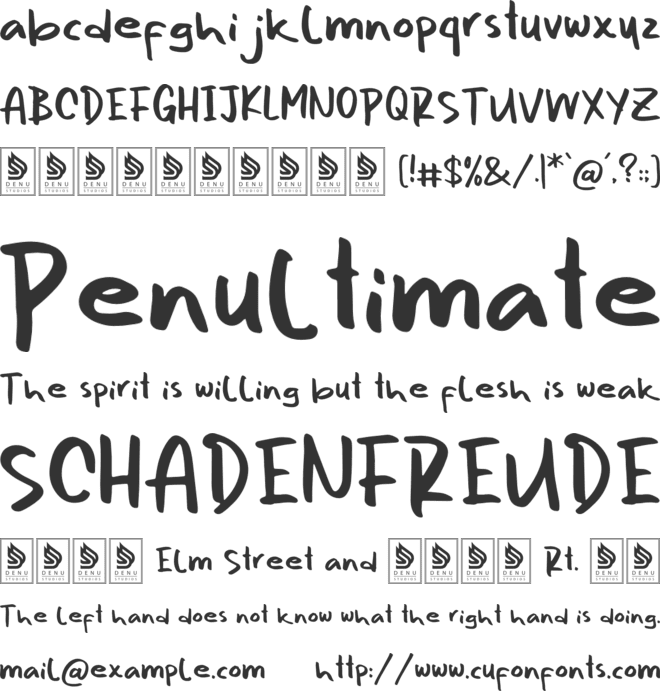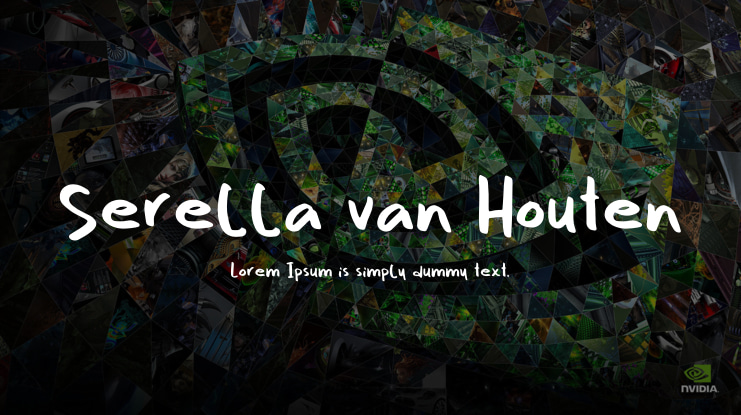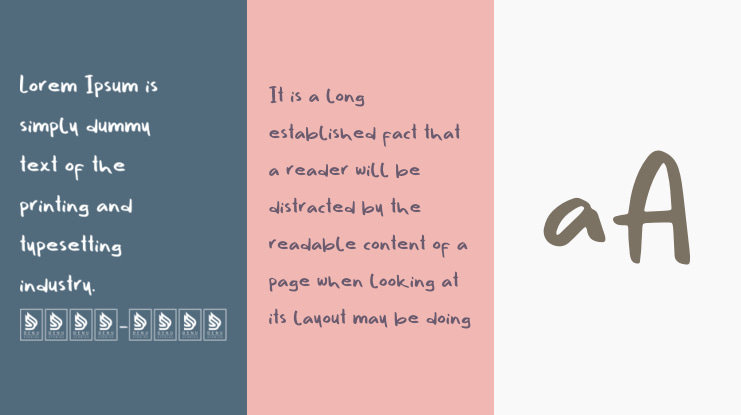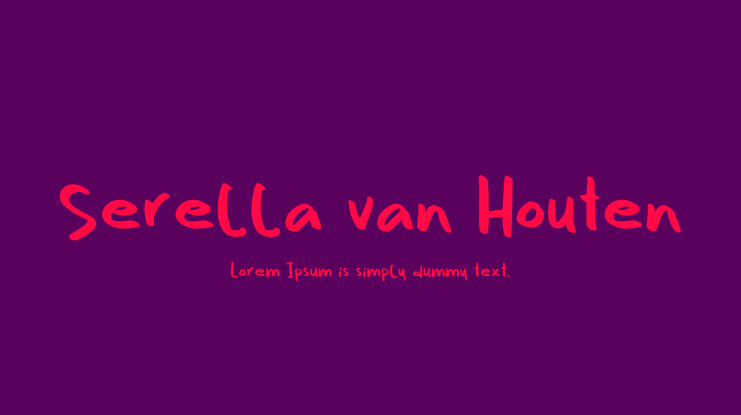
Serella van Houten Font
Serella van Houten | Hand Drawn Font
This hand-drawn font is ideal for an array of projects including logos, branding, homeware designs, product packaging, mug designs, quotes, posters, shopping bags, t-shirts, book covers, name cards, invitation and greeting cards, labels, photography watermarks, special events, and any project requiring a handcrafted touch.